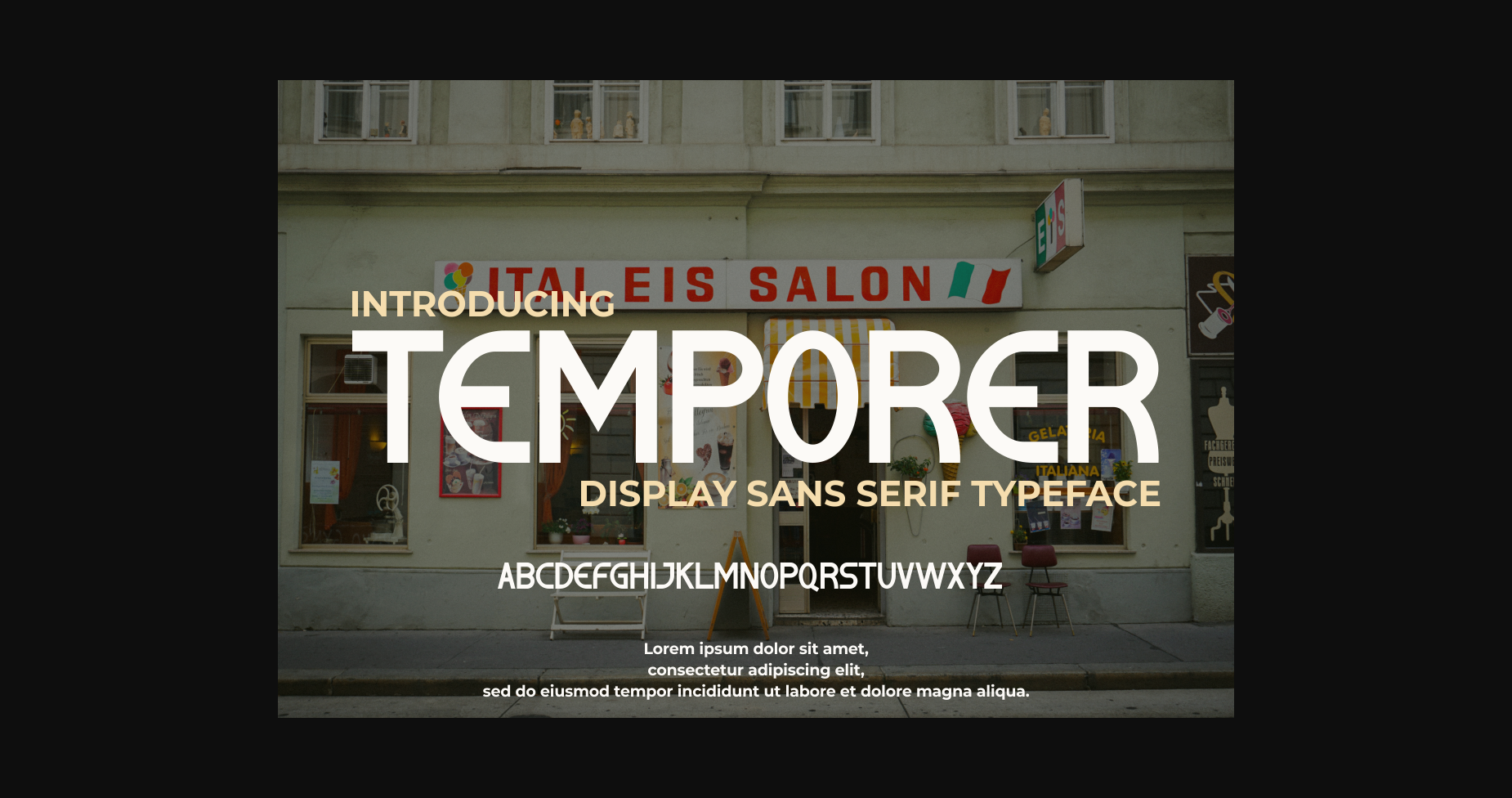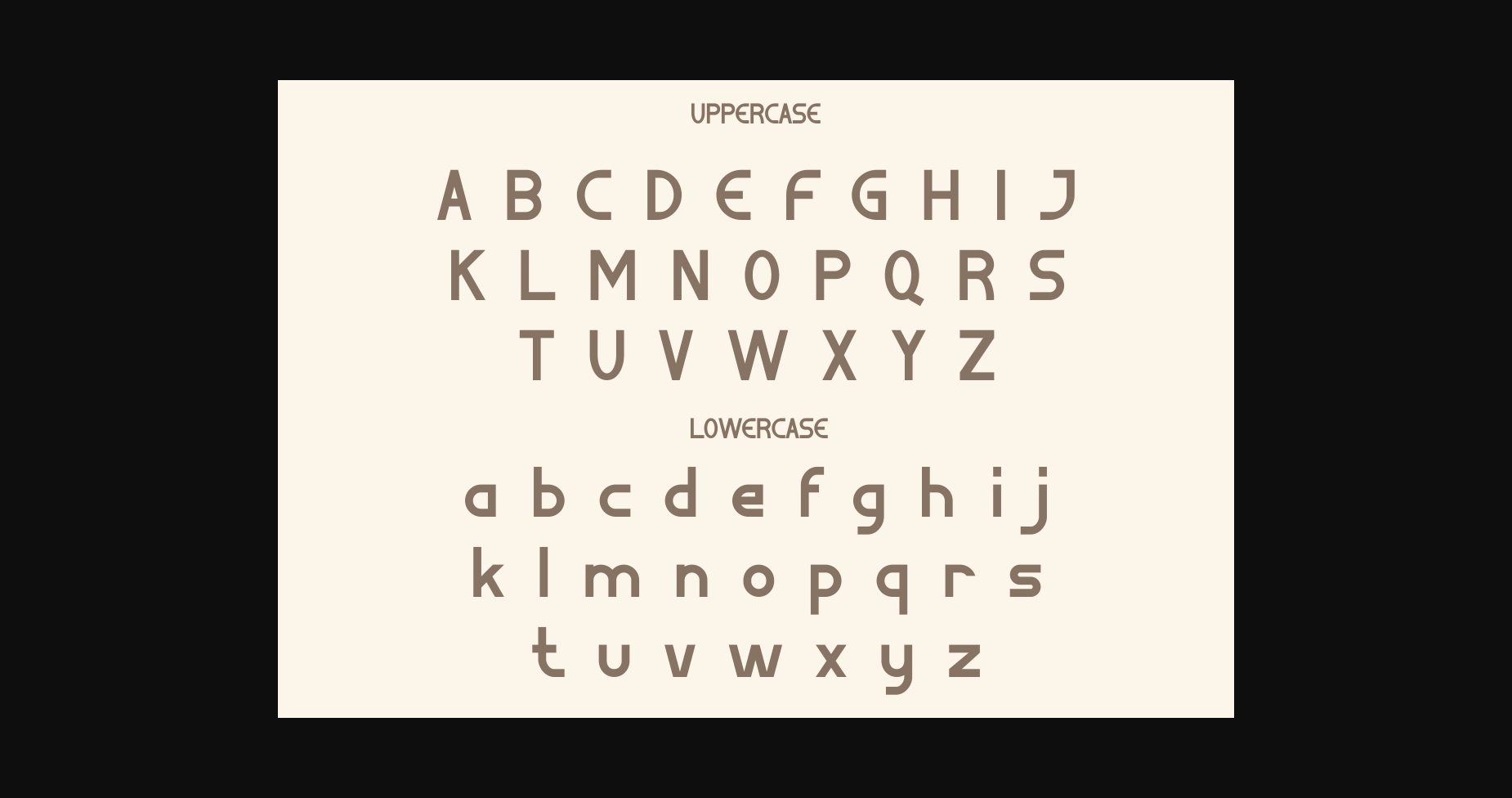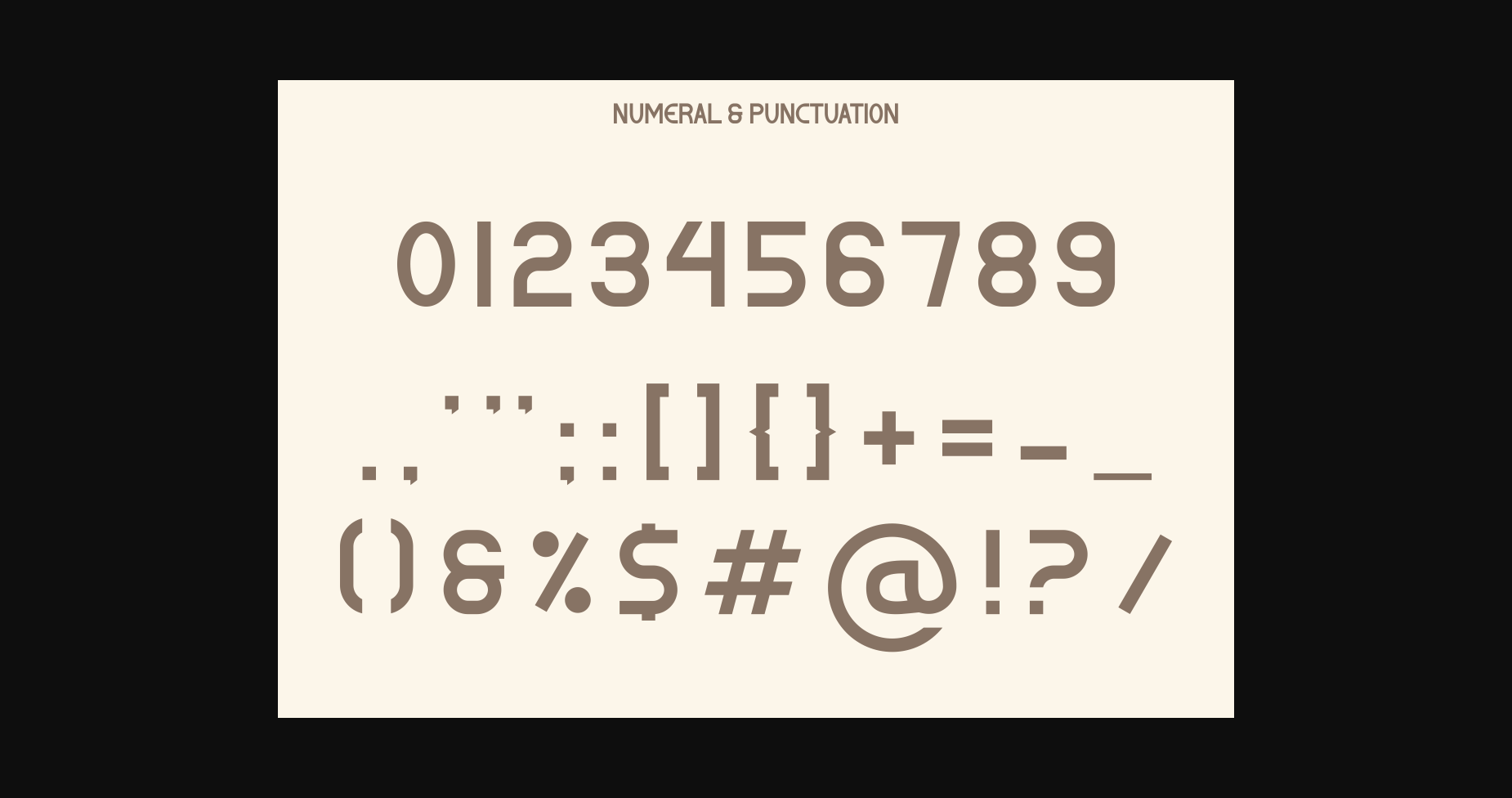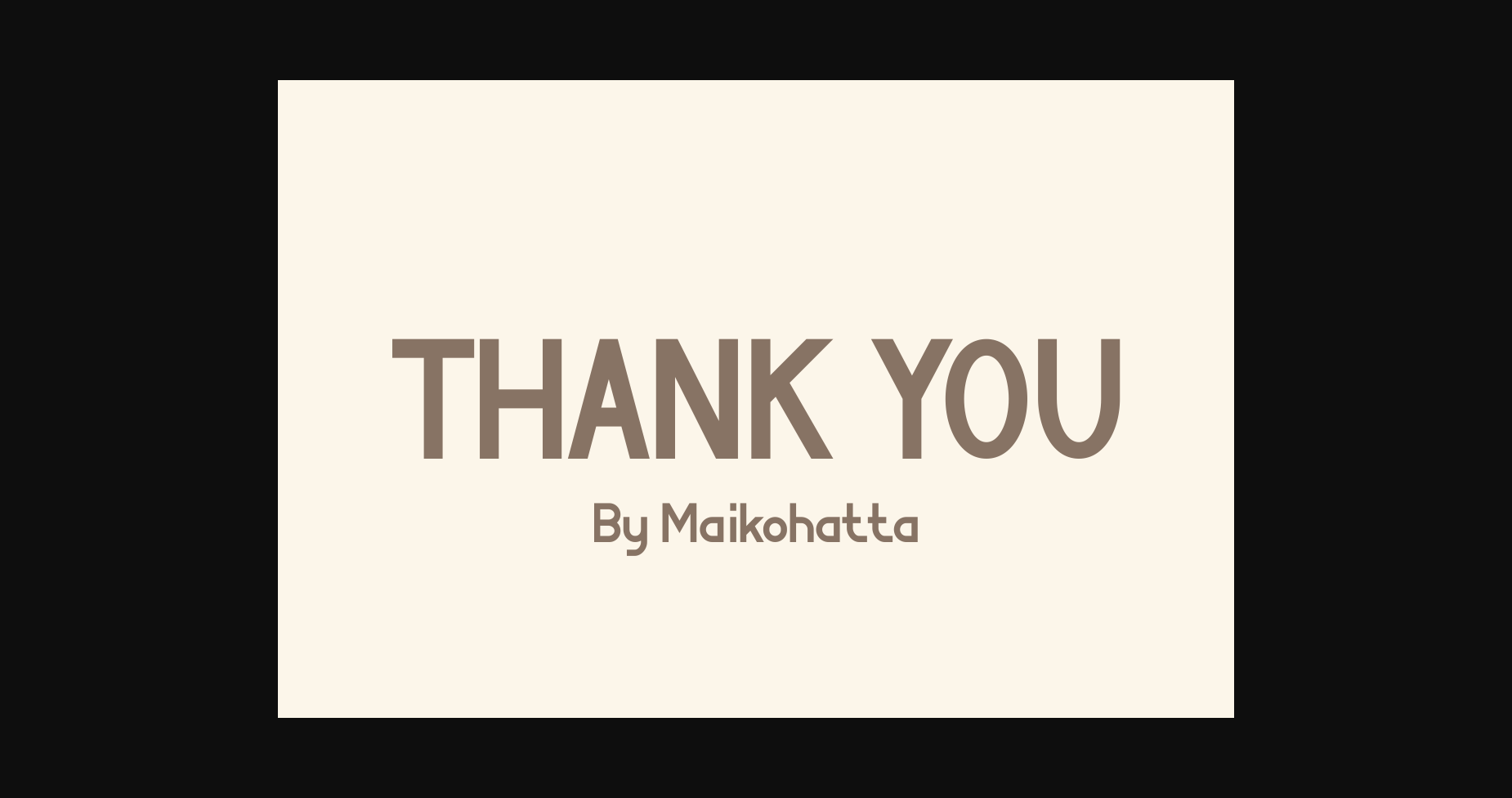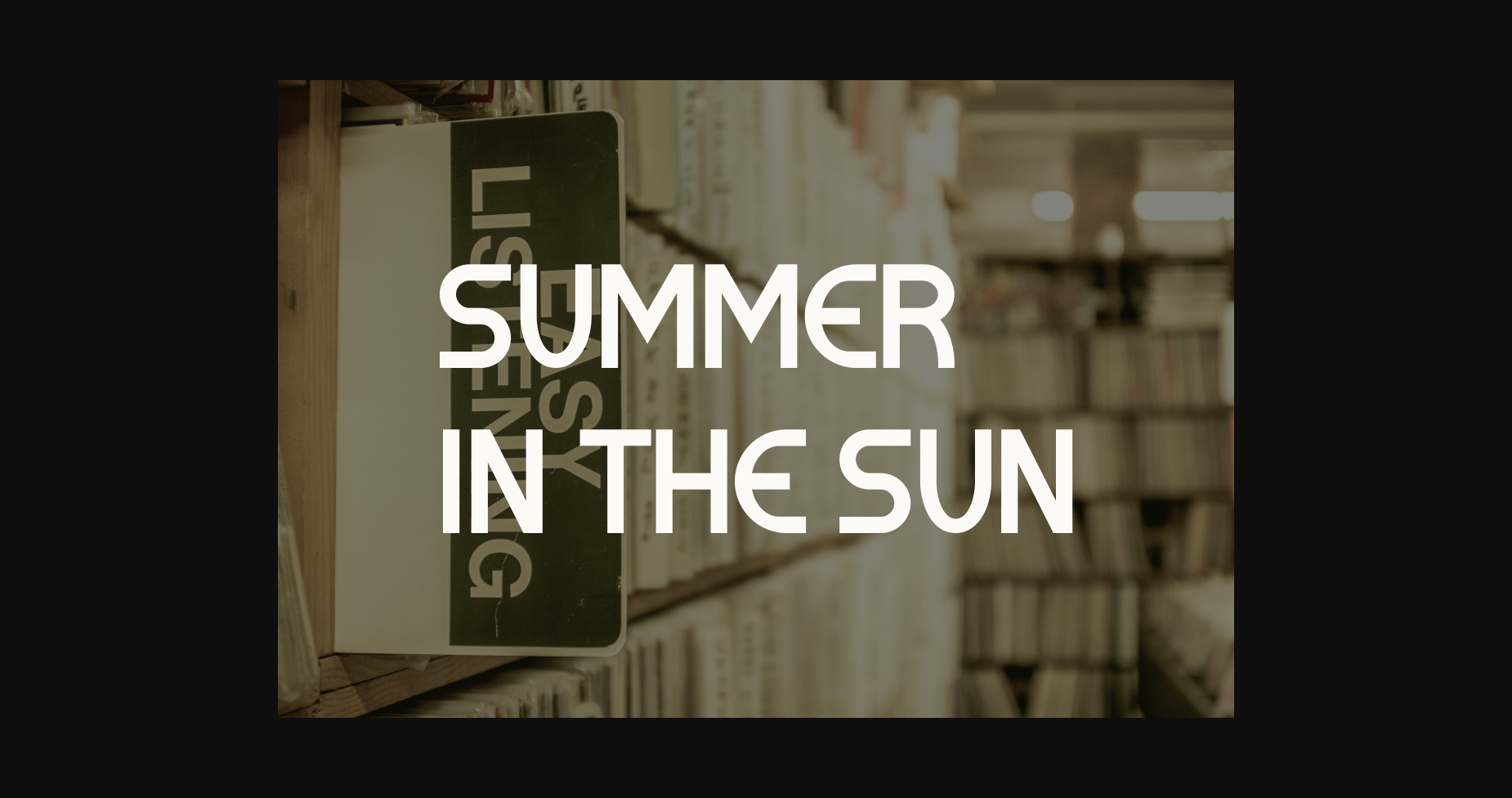
HomeSans Serif FontsTemporer Font Sans Serif Fonts Temporer Font FacebookXPinterestWhatsApp 1 of 7 ... Temporer Font Poster 2... Temporer Font Poster 3... Temporer Font Poster 4... Temporer Font Poster 5... Temporer Font Poster 6... Temporer Font Poster 7... About Temporer Font Temporer is a cool and modern sans serif font. It has a clean, thin, and smooth vibe and it will be a hit for any design that you want to add it to. DOWNLOAD NOW People also explored Garden House Font Love Your Story Font Kalko Font The Losgae Font Javolez Font Jumping Bean Classic Marker Font Maidenhair Font Astonish 466 0 TagsTemporer Font Previous articleUreticon FontNext articleTechopedio Font LEAVE A REPLY Cancel reply Comment: Please enter your comment! Name:* Please enter your name here Email:* You have entered an incorrect email address! Please enter your email address here Website: Save my name, email, and website in this browser for the next time I comment. Personal Use Free Dakwart Letter Personal Use Free Read more about this font Rozalyn Personal Use Free Read more about this font Eva Personal Use Free Read more about this font Aseline Personal Use Free Read more about this font BLOG Elegant Wedding Invitation Fonts – Handwritten & Script Fonts Elegant Wedding Invitation Fonts Your wedding day is one of the most important moments of your life, and every detail matters—including your invitation design. Our... Fonts That Capture the Spirit of New York City The 10 Best Handwriting Fonts to Add Personality to Your Designs To increase your work productivity, choose the most readable fonts.